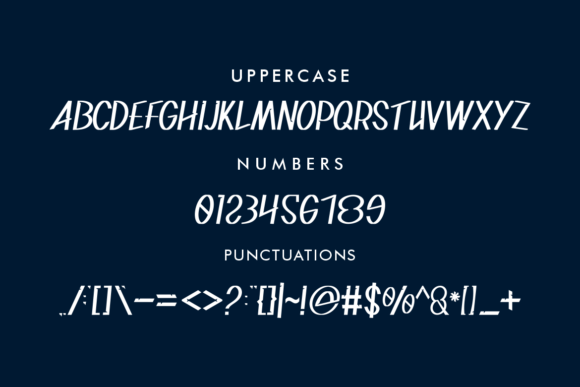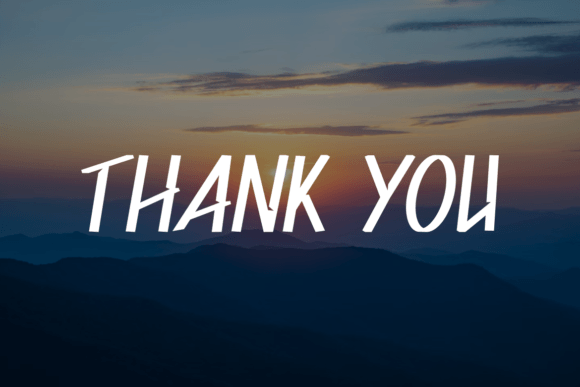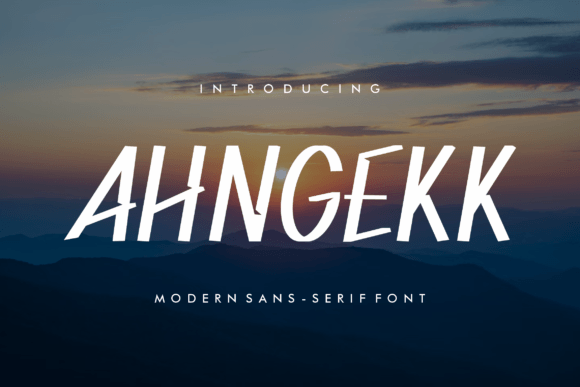
Discover the Elegance of Ahngekk Font: A Modern Sans Serif Marvel
In the realm of typography, fonts play a pivotal role in conveying messages, evoking emotions, and creating lasting impressions. Among the myriad of fonts available to designers and crafters, Ahngekk stands out as a beacon of modernity and elegance. This modern sans serif font has been meticulously crafted to exude beauty, classiness, and a touch of sophistication, making it an ideal choice for a wide array of design projects.
The Essence of Ahngekk Font
Ahngekk is not just another font; it’s an experience. Its clean lines, precise curves, and balanced structure make it a versatile typeface that can elevate any design. Whether you’re working on a signature, stationery, logo, wedding invitations, typography quotes, magazine or book covers, website headers, clothing designs, branding, or packaging, Ahngekk promises to add that extra oomph to your creations.
One of the key strengths of Ahngekk font is its incredible versatility. Its modern sans serif design ensures that it remains legible and aesthetically pleasing across various mediums and sizes. Here are some of the areas where Ahngekk truly shines:
- Signature and Stationery: Add a touch of elegance to your personal or business correspondence with Ahngekk.
- Logo Design: Create memorable and impactful logos that stand out with the unique charm of Ahngekk.
- Wedding and Event Design: Make your wedding invitations, menus, and event signage unforgettable with Ahngekk’s classy appeal.
- Typography Quotes: Showcase your favorite quotes or messages with a font that makes them truly special.
- Magazine and Book Covers: Capture the essence of your publication with a font that speaks of modernity and sophistication.
- Website Headers: Elevate your website’s design with headers that are both eye-catching and elegant.
- Clothing and Merchandise: Design t-shirts, hoodies, and other merchandise that stands out with Ahngekk’s modern appeal.
- Branding and Packaging: Develop a strong brand identity and make your packaging more appealing with Ahngekk.
Why Choose Ahngekk?
Choosing Ahngekk for your design projects comes with numerous benefits:
- Elegance: Ahngekk brings an unmatched level of elegance to your designs, making them instantly more appealing.
- Readability: Its clear and clean design ensures that your message is conveyed effectively, regardless of the medium.
- Versatility: From digital to print, Ahngekk adapts seamlessly, making it a flexible choice for various projects.
- Uniqueness: Stand out from the crowd with a font that is both modern and distinctive.
Tips for Using Ahngekk Effectively
To maximize the potential of Ahngekk, consider the following tips:
- Pair it Wisely: Combine Ahngekk with complementary fonts to create visual interest and hierarchy in your designs.
- Experiment with Sizes: Play with different sizes to emphasize certain elements and create a focal point in your design.
- Adjust Line Spacing: Ensure readability by adjusting line spacing according to the size and medium of your text.
- Color Matters: Choose colors that complement Ahngekk’s modern and elegant vibe to enhance your design’s impact.
Ahngekk font is more than just a typeface; it’s a design statement. Its modern sans serif elegance, versatility, and readability make it an invaluable asset for designers and crafters looking to elevate their projects. Whether you’re aiming to create a stunning logo, an elegant wedding invitation, or a captivating website header, Ahngekk is your go-to font for making a lasting impression. Embrace the elegance of Ahngekk and discover a new dimension of design possibilities.